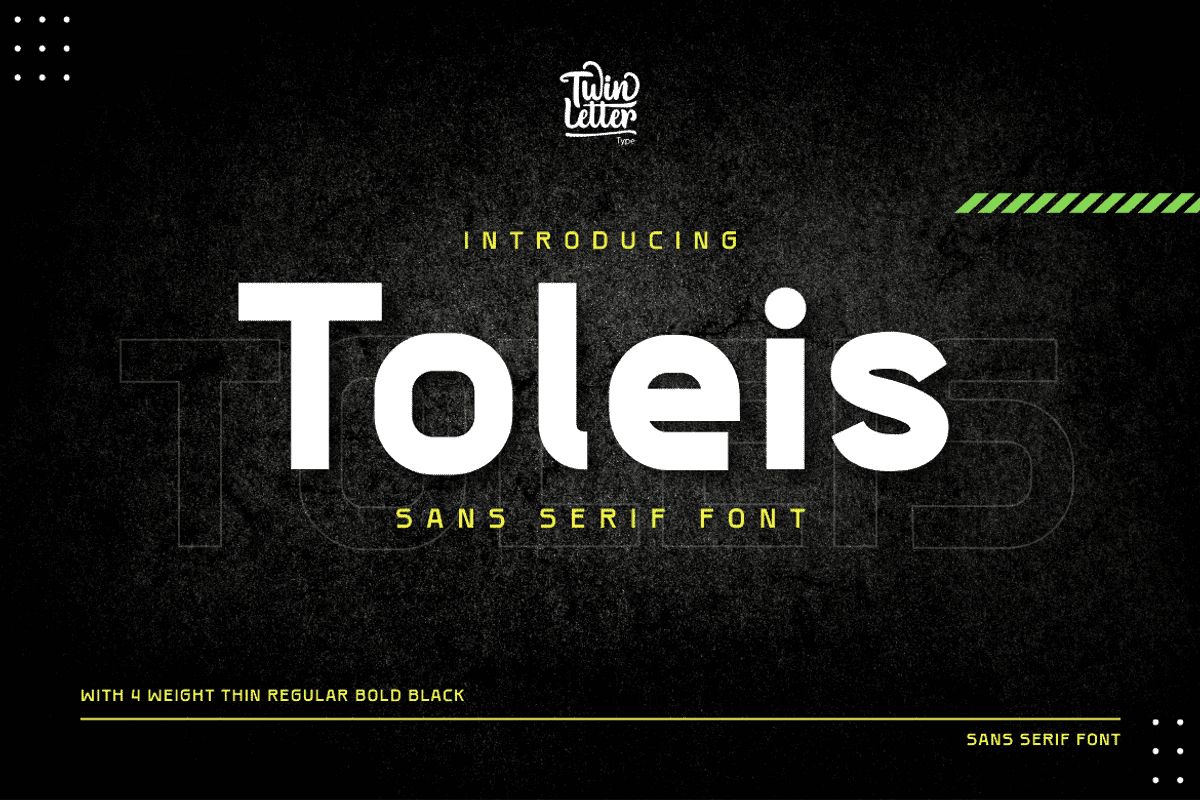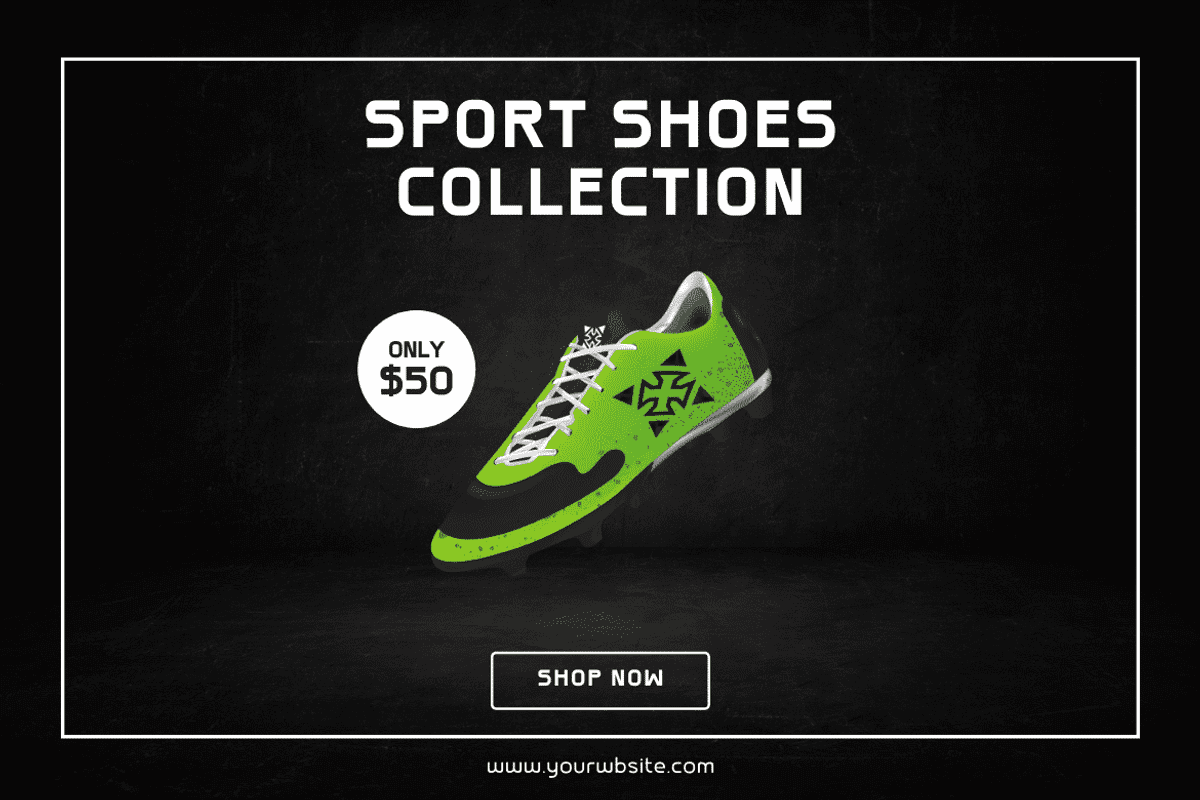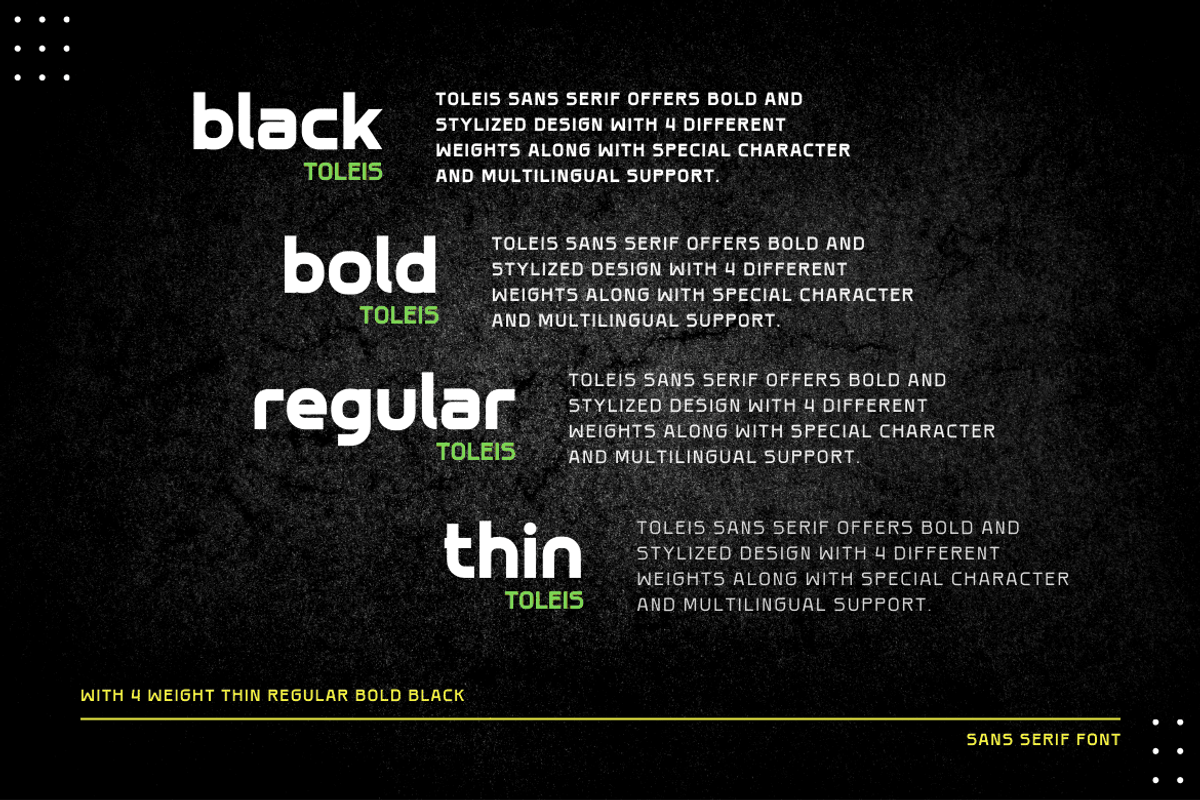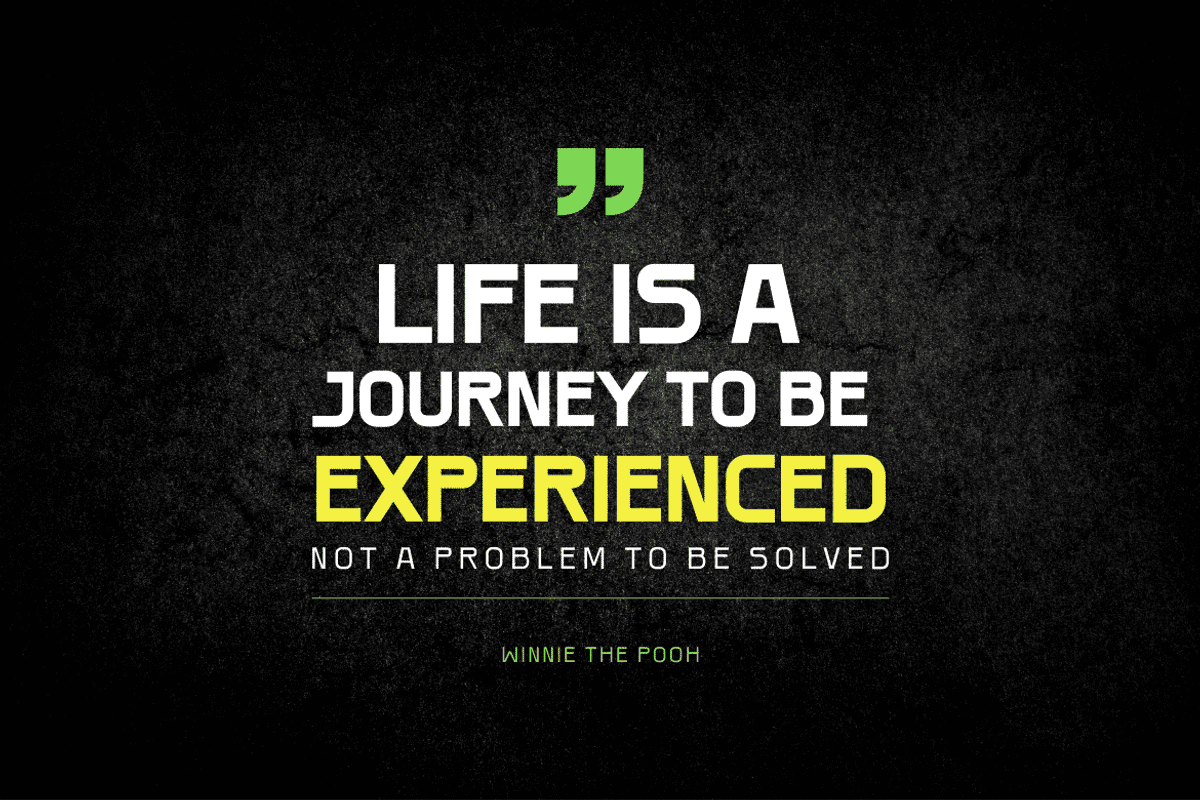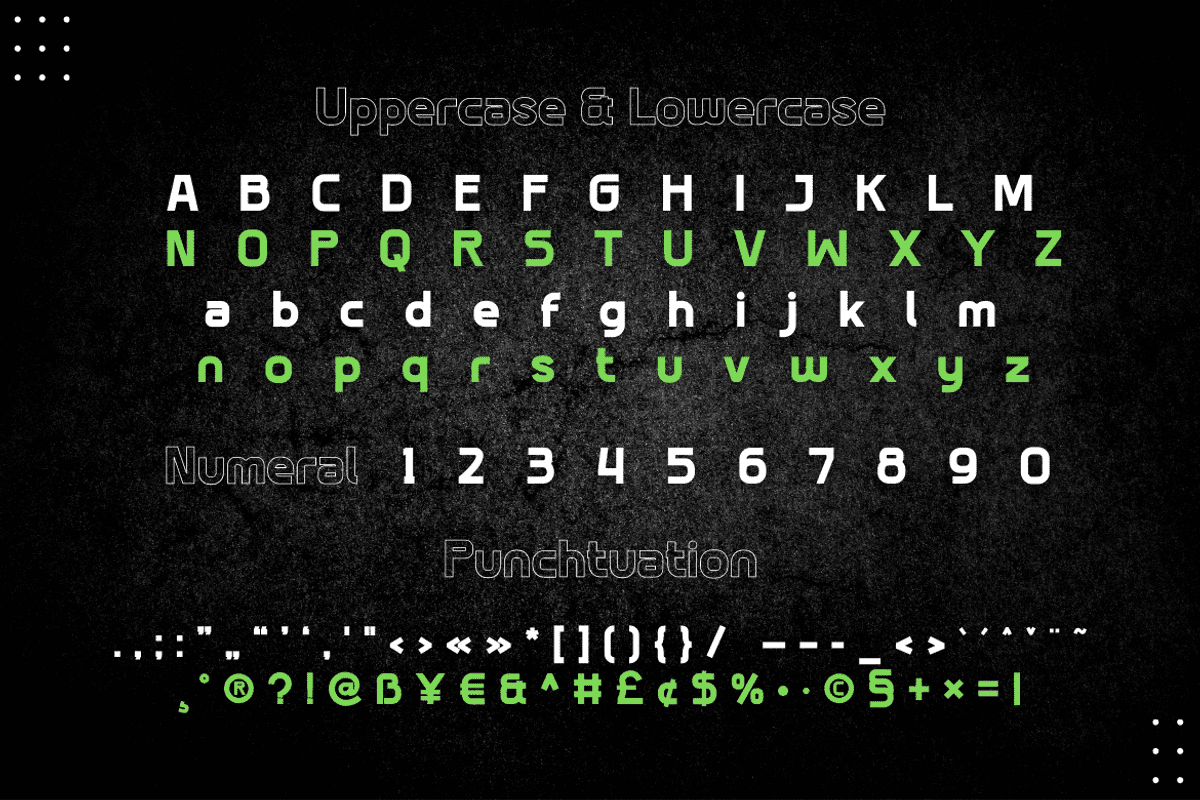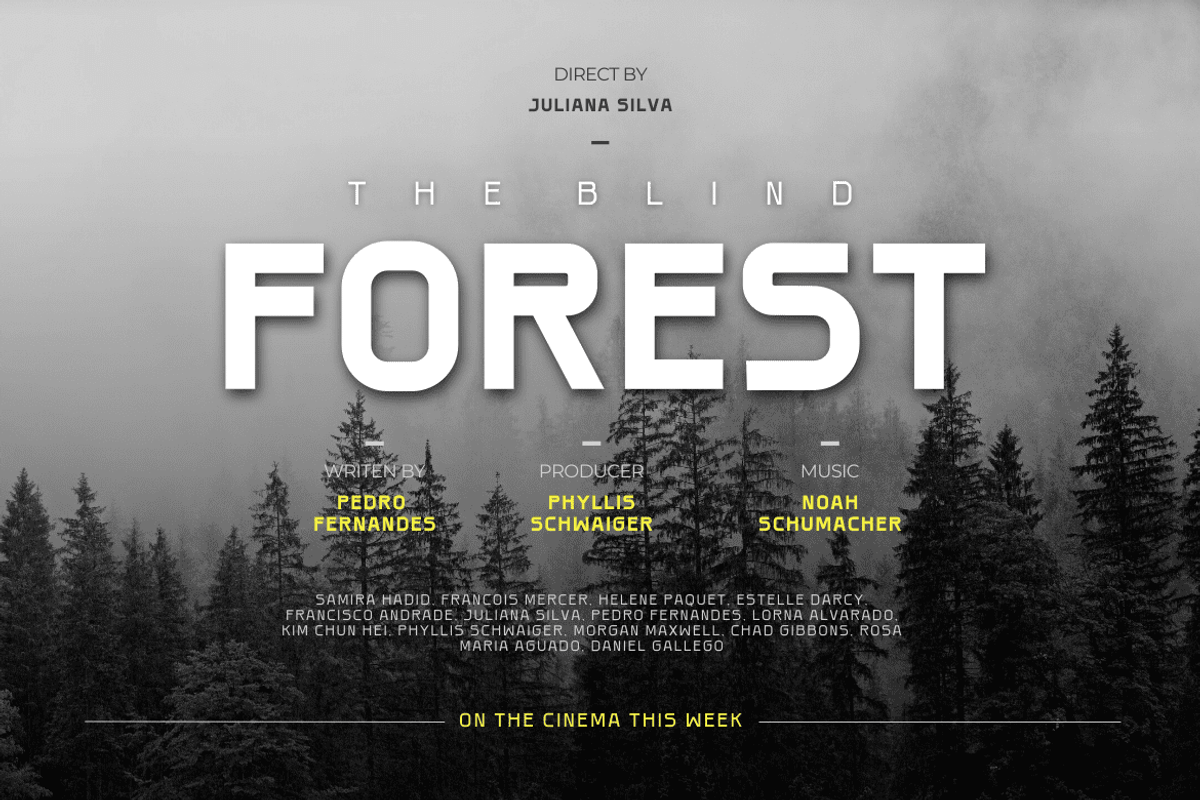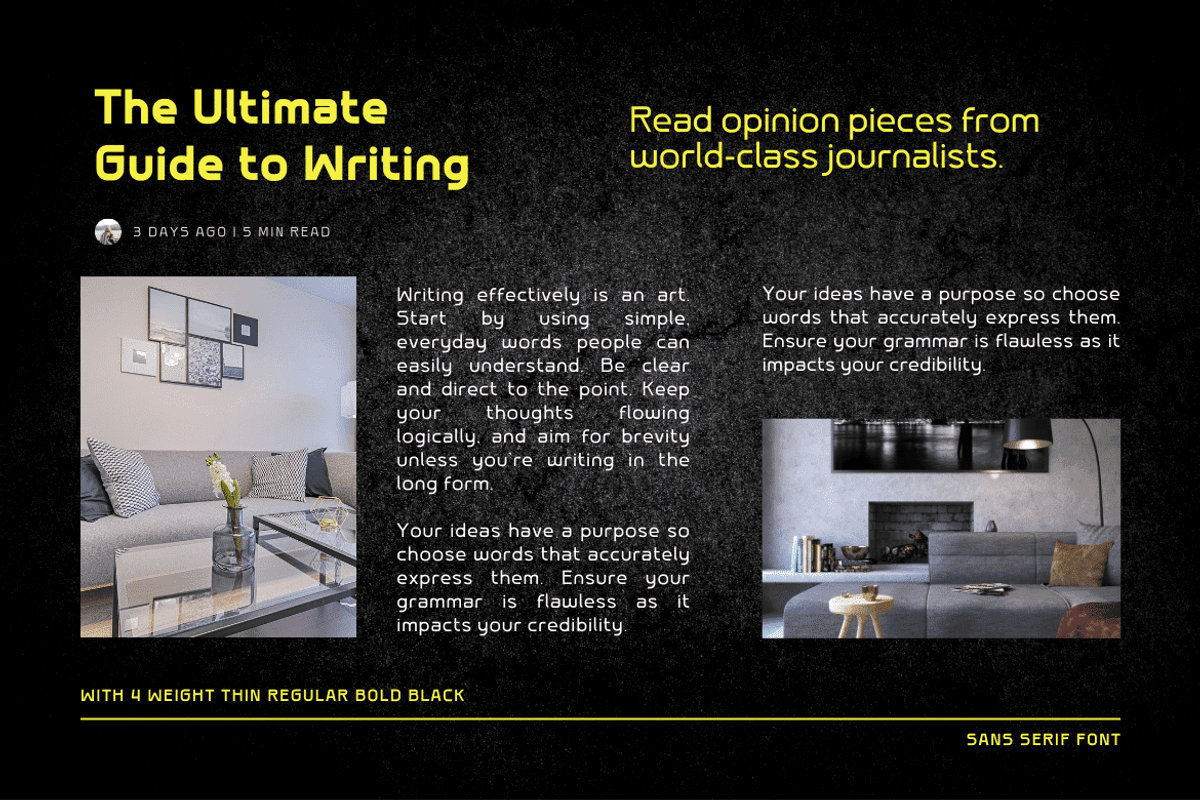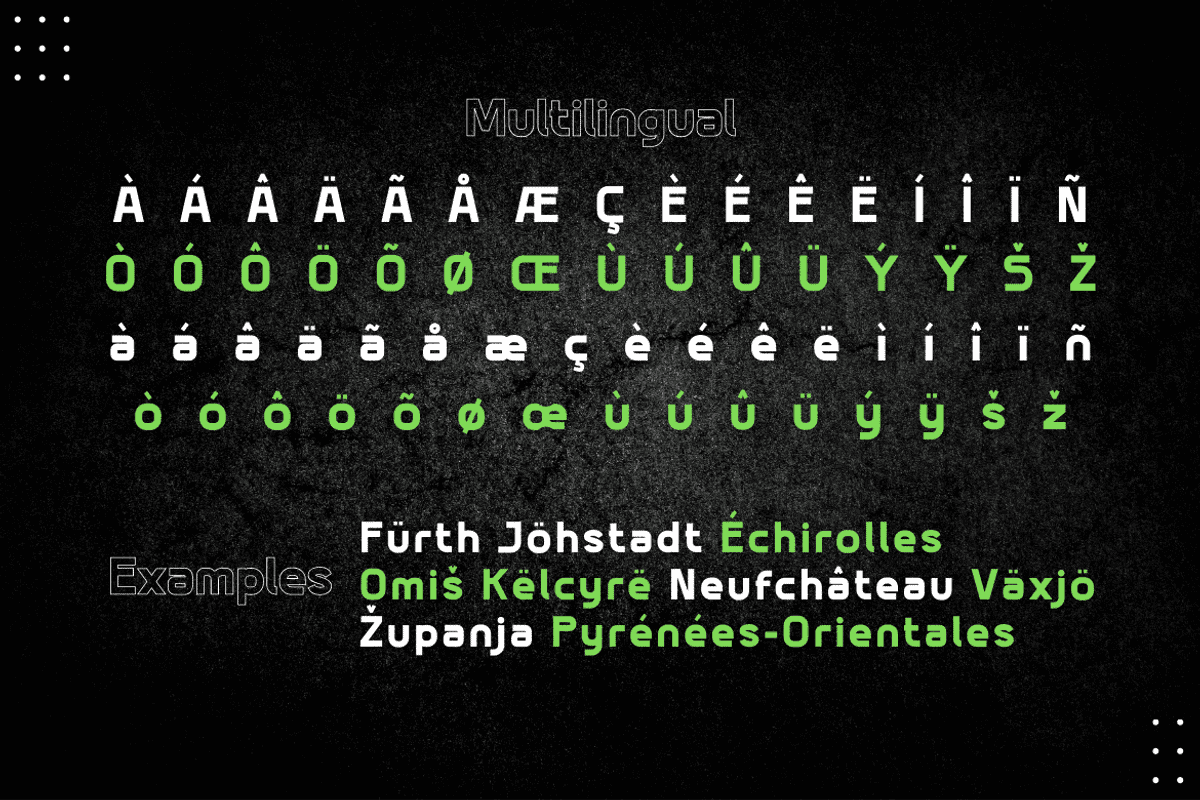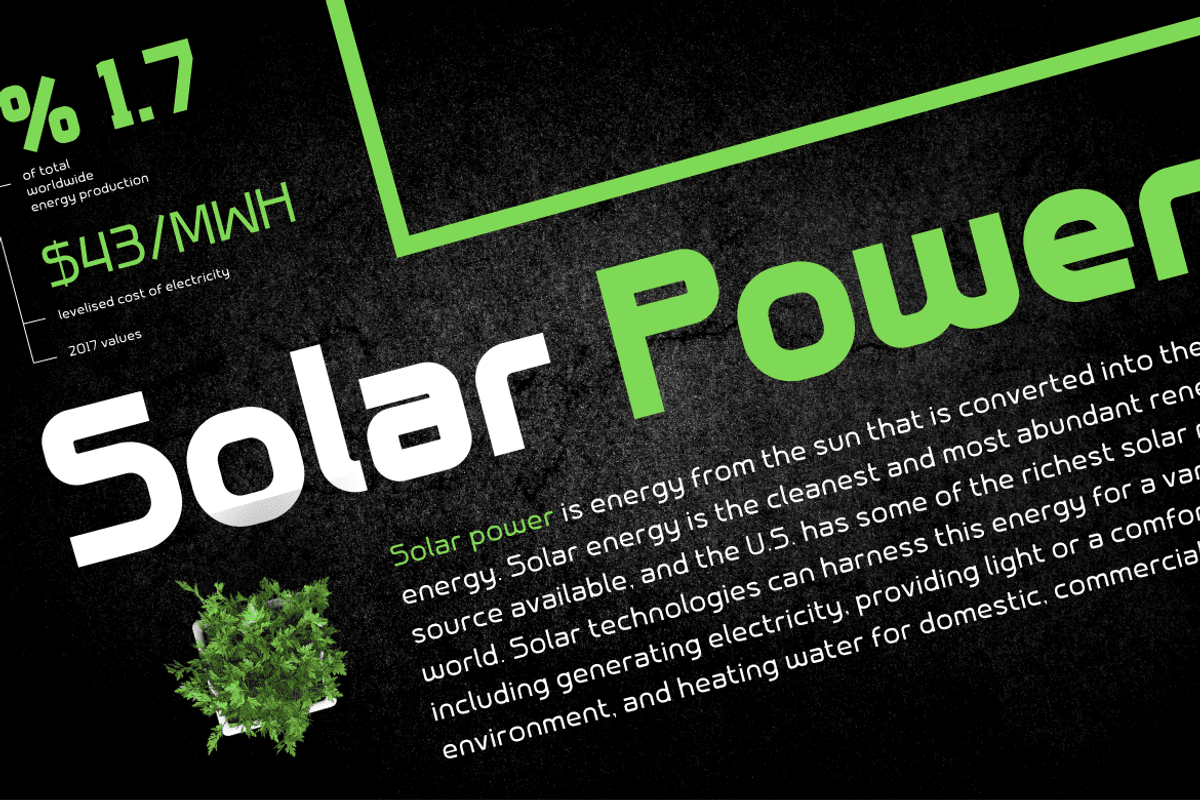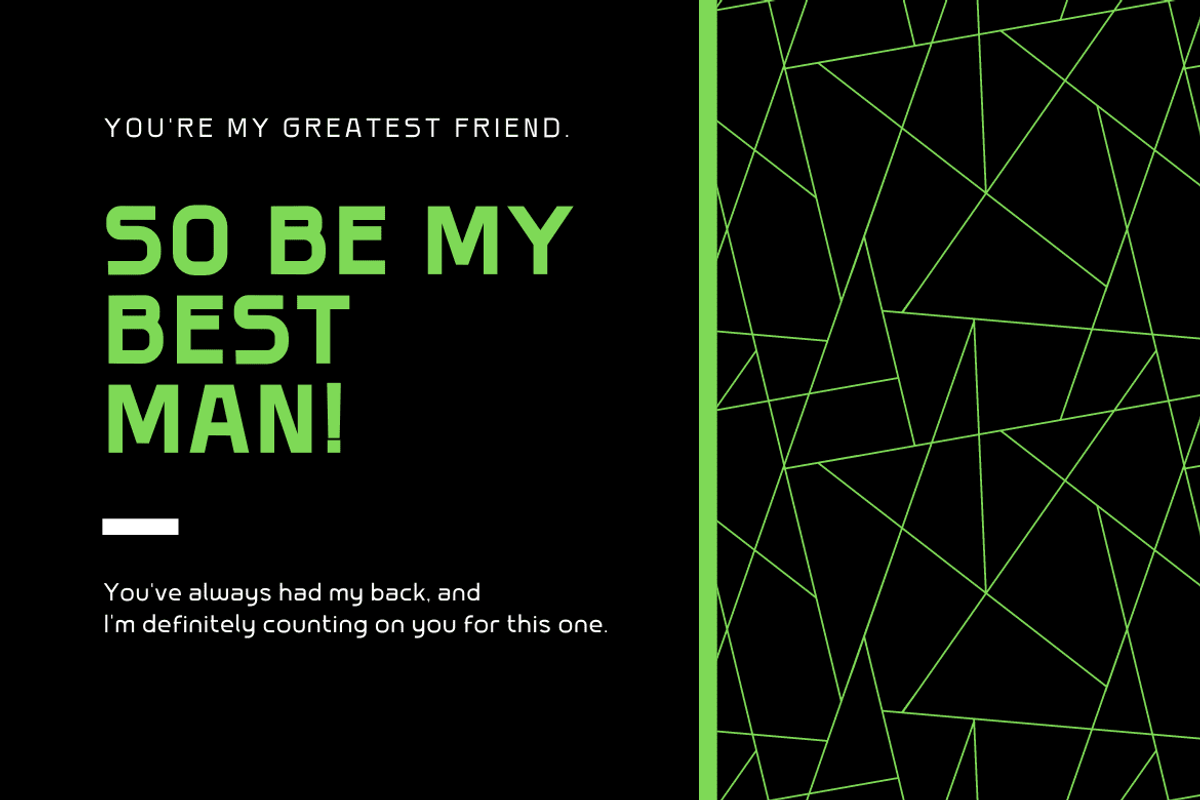
Toleis
Toleis is a san serif font that we designed for you. Much attention is paid to the correct position of the accent. All overhead has its own height, which creates an additional level of readability. As well as numbers and punctuation, which are an integral part of any text. This pack includes alternative options for many glyphs — old-style figures, straps, style sets, and more. So you can customize the font to your liking and keep your look consistent.”
of course, your various design projects will be perfect and extraordinary if you use this font because this font is equipped with a font family, both for titles and subtitles and sentence text, start using our fonts for your extraordinary projects.